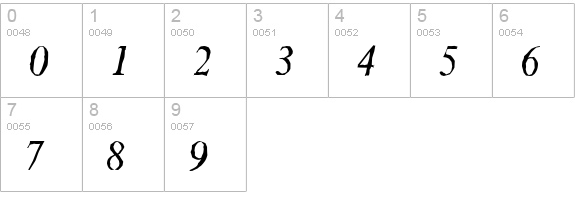
ThamesAntique-Italic is a distinctive, italic variant in the ThamesAntique typeface family \xE2\x80\x94 well suited to design and typography projects.
ThamesAntique-Italic font exudes a timeless elegance with its delicate and refined italic style. This exquisite font is perfect for adding a touch of sophistication to any project, from invitations to branding materials. The graceful curves and intricate details of ThamesAntique-Italic evoke a sense of old-world charm and sophistication. The best part? ThamesAntique-Italic font is available for free! You can easily download this stunning font at FontsMarket.com and elevate your designs with its classic beauty. Whether you're working on a wedding invitation, a logo, or a vintage-inspired project, ThamesAntique-Italic font will add a touch of class and sophistication that is sure to impress. Unlock the beauty of this timeless font today and bring a touch of elegance to your designs.